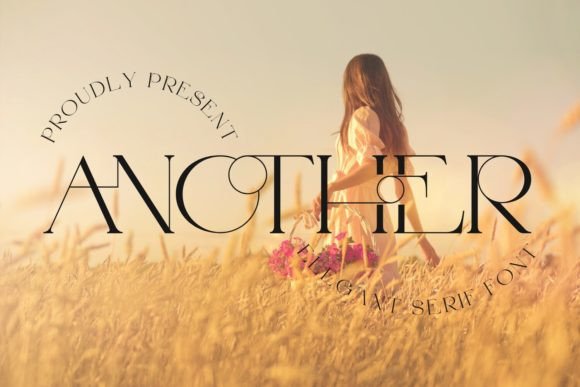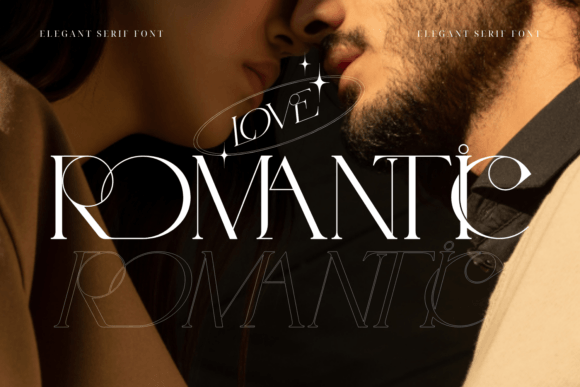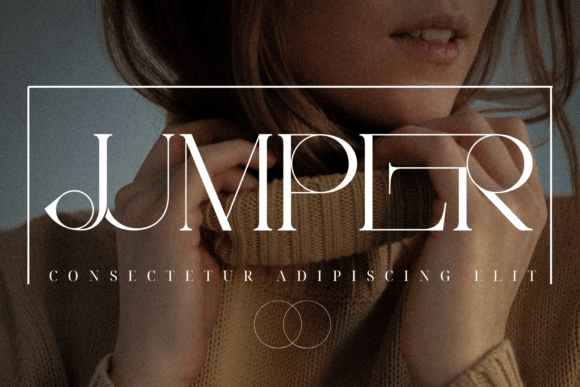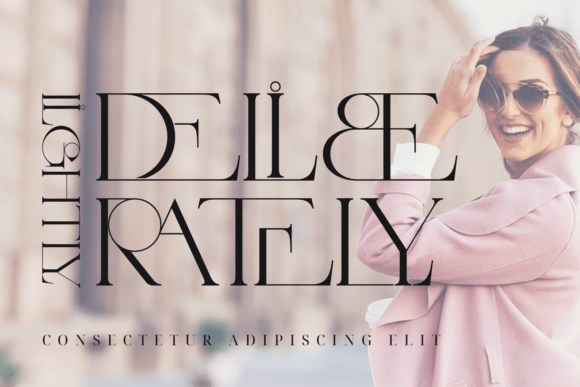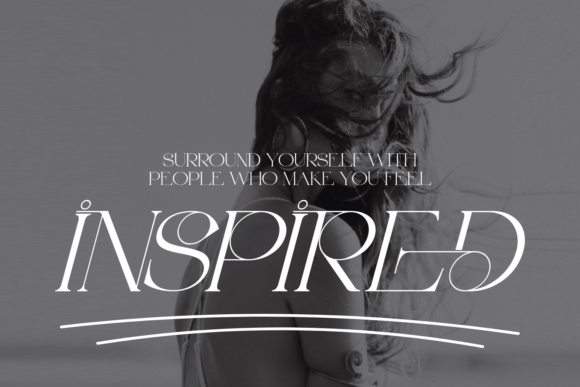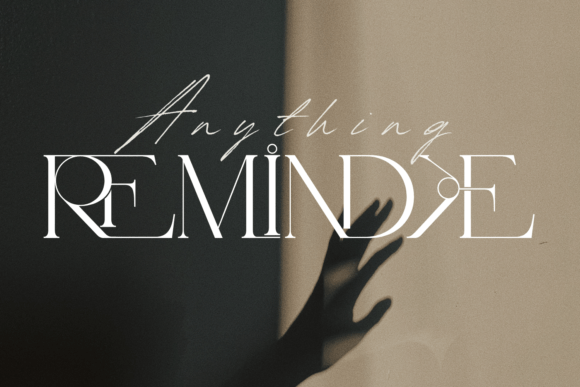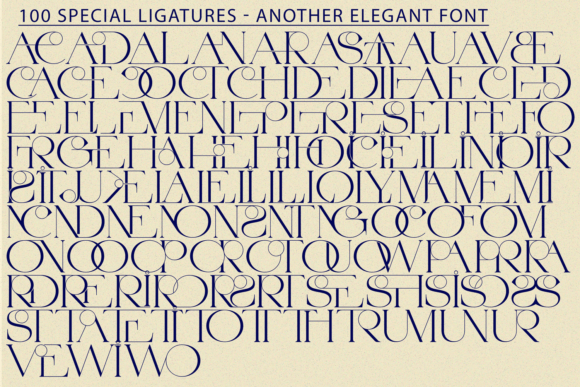
Another Elegant Font is a modern and elegant chic serif font with a classic style inspired by 18th-century typography. This is a very elegant and classy font for all branding and logo designs This type of serif font is created with elegance and luxury so it is perfect for all your design needs. This font is equipped with many beautiful and unique ligature options. Perfect for sophisticated branding, editorial design, web typography, and more.
Another Elegant was built with OpenType features and includes 100 ligatures, alternate, numbers, punctuation, and it also supports other languages.